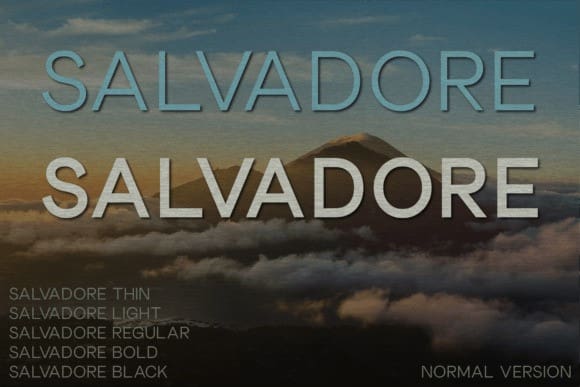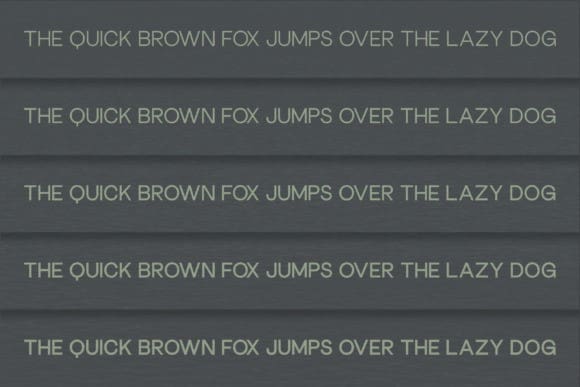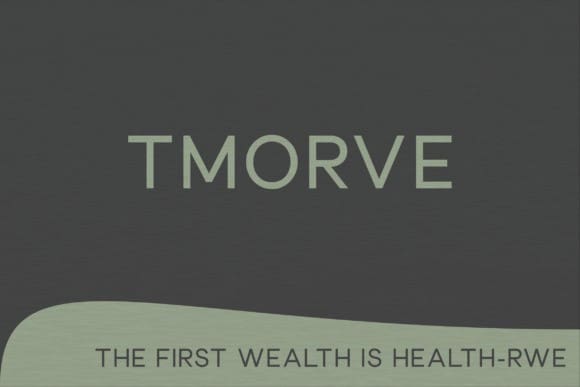
Salvadore Font Family
Salvadore Font Family. This exceptional font, existing in five distinguished weights, marries the edges of contemporary design with the allure of luxury. Masterfully designed to the minutest detail, the SalvadoreFont adorns any project — be it magazines, logos, or film posters — with an effortless grace. Experience a harmonious blend of refined sophistication and sleek simplicity that brings a timeless appeal to your creations. Harness the magic of the Salvadore Font family and elevate your designs to new heights today.